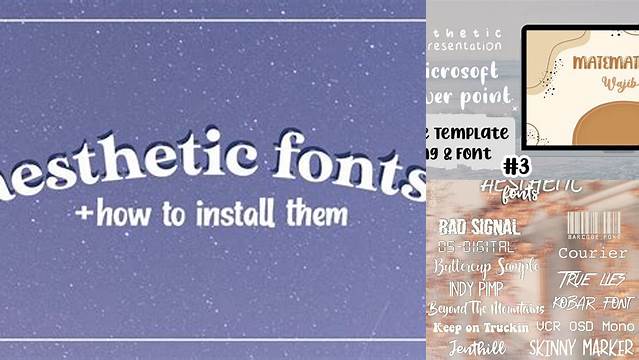
Aesthetic Fonts For PowerPoint: Free Downloads
Hey guys! Ever feel like your PowerPoint presentations are missing that certain something? You know, that visual flair that makes people go, "Wow!"? Well, chances are, you might just need to upgrade your fonts. Forget those boring, default options – we're diving into the world of aesthetic fonts that can seriously transform your slides. This guide is all about finding and downloading the perfect fonts to make your presentations pop. So, let's get started!
1. What are Aesthetic Fonts and Why Use Them in PowerPoint?
So, what exactly are aesthetic fonts? Think of them as the fonts that have that extra oomph, that unique style that sets them apart from the usual Times New Roman or Arial. These fonts can range from elegant and sophisticated to playful and quirky, and they're perfect for adding personality to your PowerPoint presentations. Why bother using them? Well, for starters, they can significantly improve the visual appeal of your slides. Imagine a beautifully crafted presentation with stunning visuals, but then… bland, boring text. It just doesn't quite hit the mark, does it? Aesthetic fonts can help you create a more cohesive and engaging presentation that keeps your audience hooked. They can also help you convey the tone and message of your presentation more effectively. A sleek, modern font can give your presentation a professional edge, while a handwritten-style font can add a touch of warmth and personality. Ultimately, using the right aesthetic font is about creating a lasting impression and making your message truly resonate. We want your presentations to not just inform, but also to captivate and inspire. Using aesthetic fonts is a great way to take your PowerPoint game to the next level and ensure your presentations are both informative and visually stunning. So let's ditch the dull fonts and explore the exciting world of aesthetic typography!
2. Where to Find Free Aesthetic Fonts for PowerPoint
3. Top 10 Aesthetic Fonts for PowerPoint in 2024
Alright, let's dive into the good stuff: my top 10 aesthetic fonts for PowerPoint in 2024! These are fonts that I've personally used and loved, or that have consistently received rave reviews in the design community. Each of these fonts brings something unique to the table, so you're sure to find something that fits your style.
- Playfair Display: A classic serif font that exudes elegance and sophistication. Perfect for titles and headings, it adds a touch of class to any presentation.
- Montserrat: A clean and modern sans-serif font that's incredibly versatile. It works well for both headings and body text and has a professional, approachable feel.
- Raleway: Another sans-serif favorite, Raleway has a slightly more delicate and airy feel than Montserrat. It's great for creating a clean and minimalist aesthetic.
- Oswald: A condensed sans-serif font that's perfect for headlines and subheadings. It's bold and impactful, making your text stand out.
- Poppins: A geometric sans-serif font with a friendly and approachable vibe. It's super legible and works well in a variety of contexts.
- Lora: A well-balanced serif font that's easy on the eyes and perfect for body text. It has a classic yet contemporary feel.
- Roboto: A modern sans-serif font that's incredibly versatile and widely used. It's a great choice for both headings and body text.
- Cabin: A friendly sans-serif font that's perfect for creating a warm and inviting presentation. It has a slightly rounded character that adds a touch of personality.
- Merriweather: A readable serif font that's designed specifically for screens. It's a great choice for longer blocks of text.
- Pacifico: A fun and playful script font that's perfect for adding a touch of personality to your slides. Use it sparingly for headings or accents.
These are just a few of the many amazing aesthetic fonts out there, but they're a great starting point for your font exploration! Remember to experiment with different combinations and find what works best for your presentation style. Have fun with it!
4. Serif vs. Sans-serif Fonts: Which to Choose?
Okay, so you've seen some amazing aesthetic fonts, but you might be wondering about the difference between serif and sans-serif fonts, and which one is the right choice for your PowerPoint presentation. Let's break it down, guys!
Serif fonts are those with the little